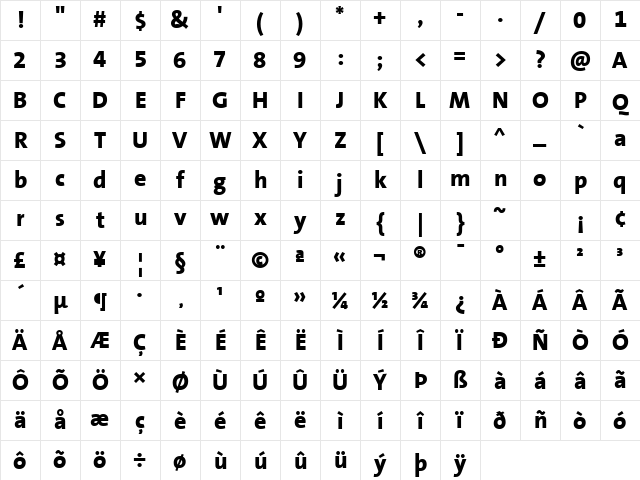
TheSans Regular
Foundry: Copr. Luc[as] de Groot <www.FontFabrik.com>
Design Context for TheSans
TheSans is a composed and adaptable typeface that performs quietly and consistently across a wide range of design contexts.
Who designed the TheSans Regular font?
This font was published by Copr. Luc[as] de Groot &lt;www.FontFabrik.com&gt;. Check the technical specs section for copyright and designer details.